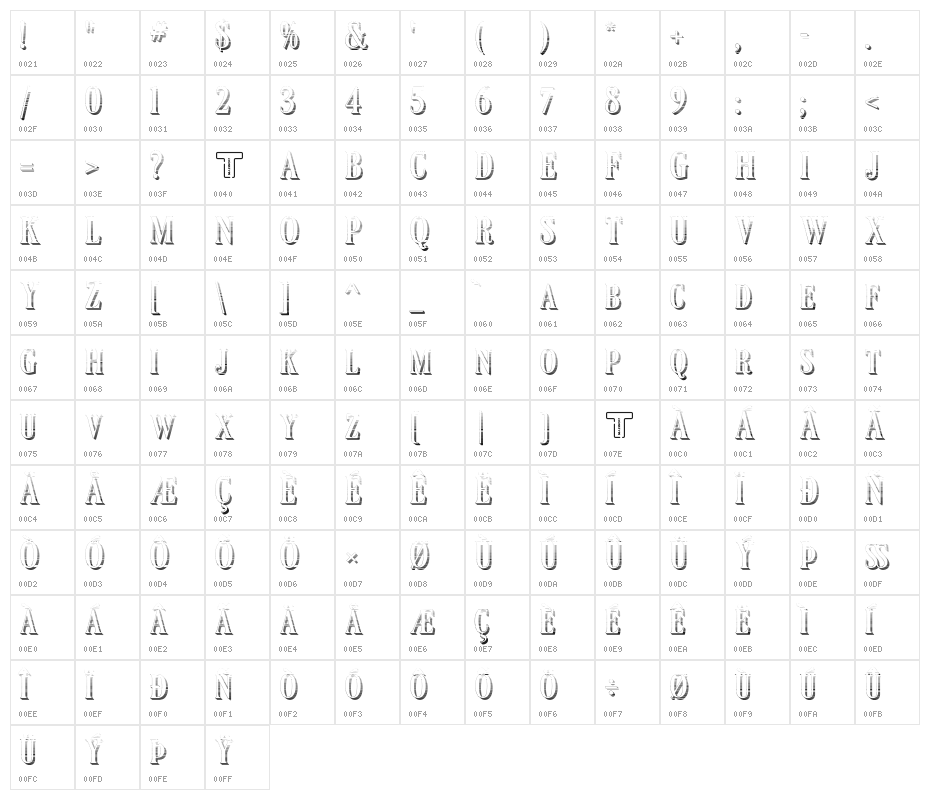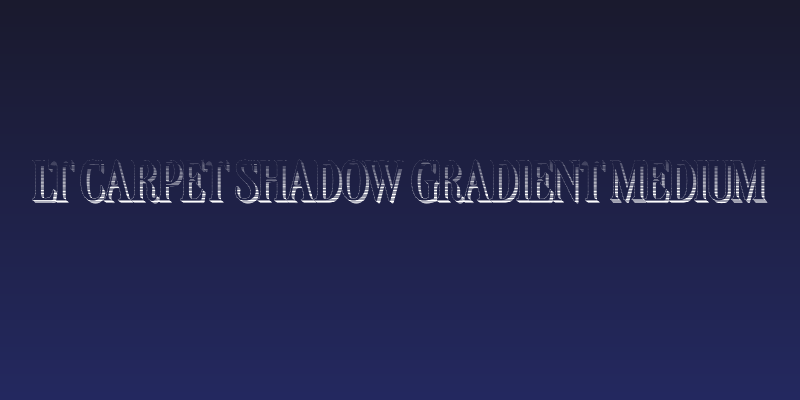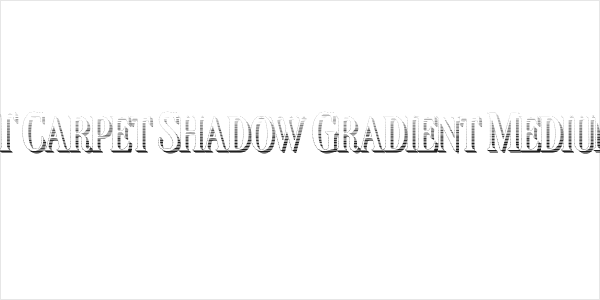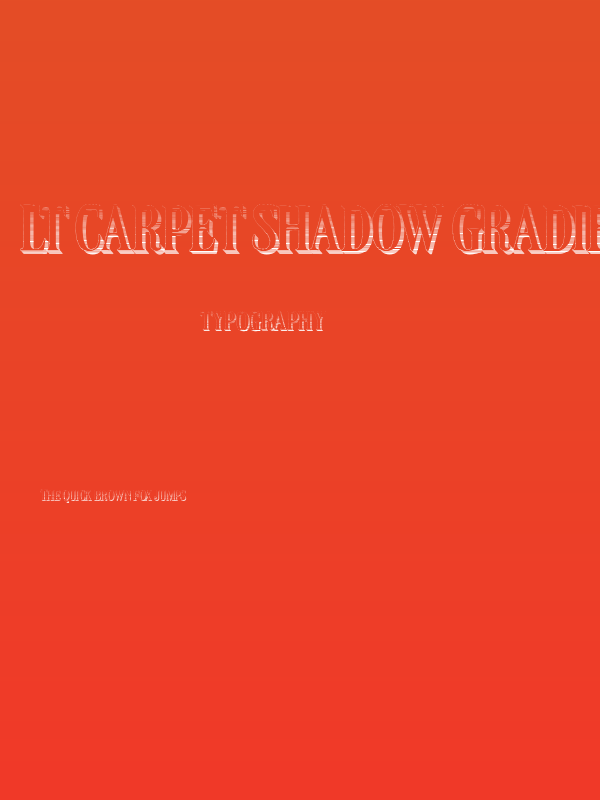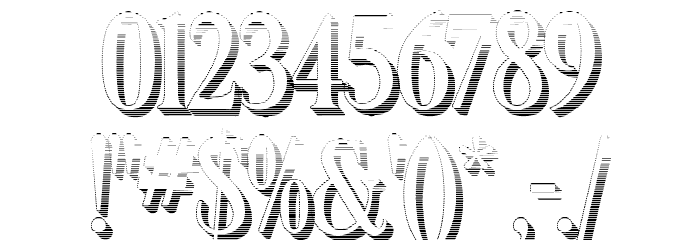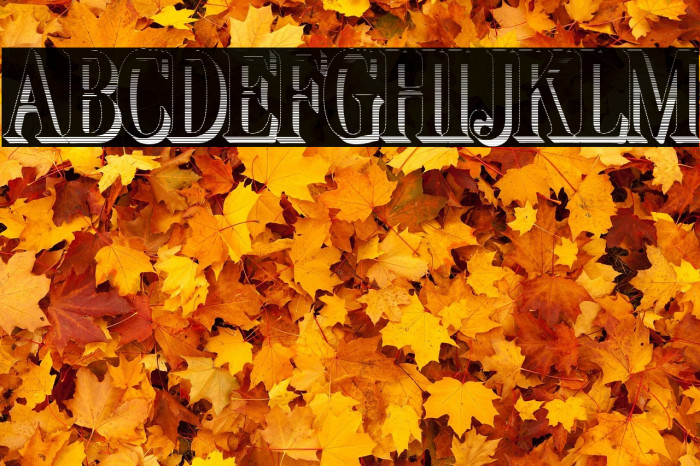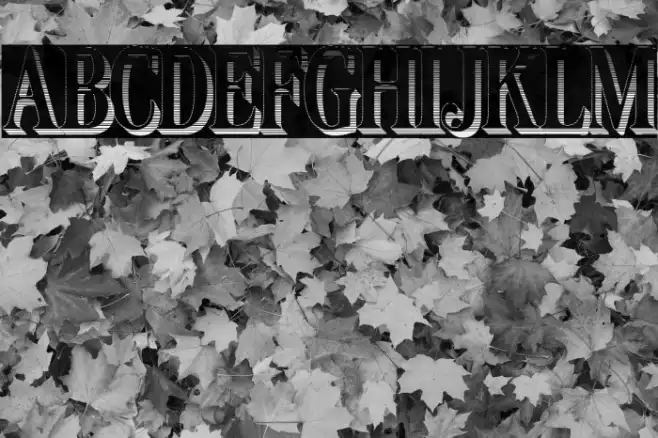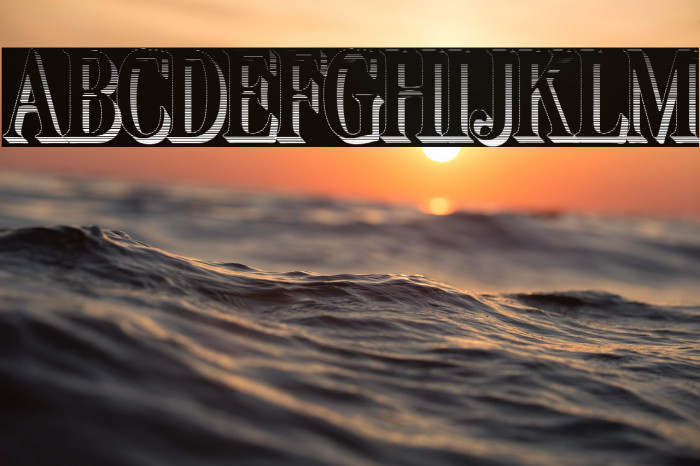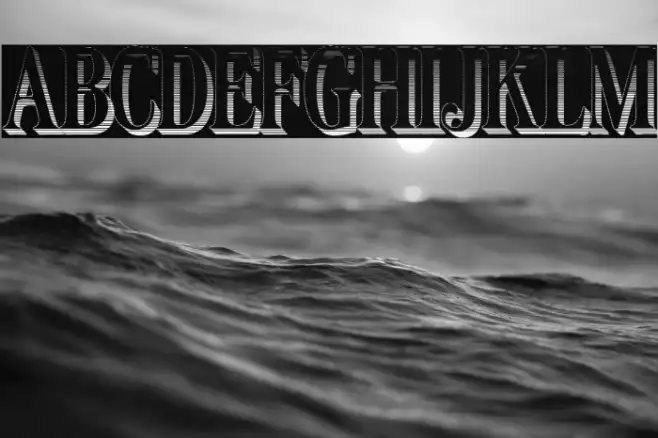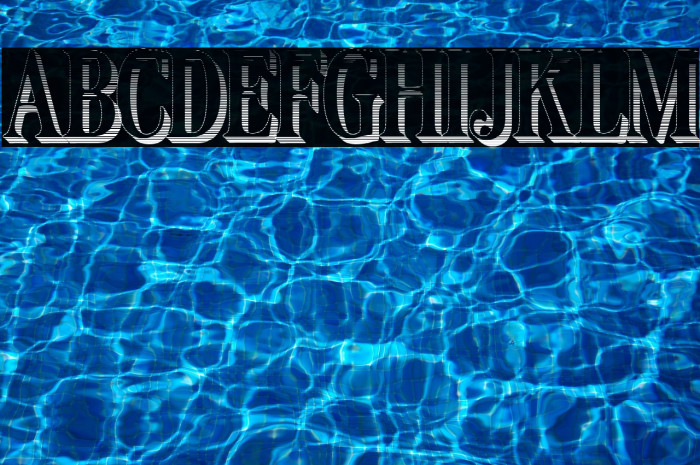
LT Carpet Shadow Gradient Medium Font
LT Carpet Shadow Gradient Medium Description
This font features a bold and striking design with a shadow gradient effect that gives it a three-dimensional appearance. The characters are uppercase and have a strong, impactful presence, making them ideal for attention-grabbing headlines or titles. The shadow effect is consistent across all characters, adding depth and a sense of movement. The font maintains a classic serif style, with each letter having distinct serifs that enhance its traditional look. The numbers and special characters are designed to match the boldness and style of the letters, ensuring a cohesive appearance across all text elements.
| Proposed Projects | Ideal for posters, logos, and headlines where a dramatic and eye-catching font is needed. |